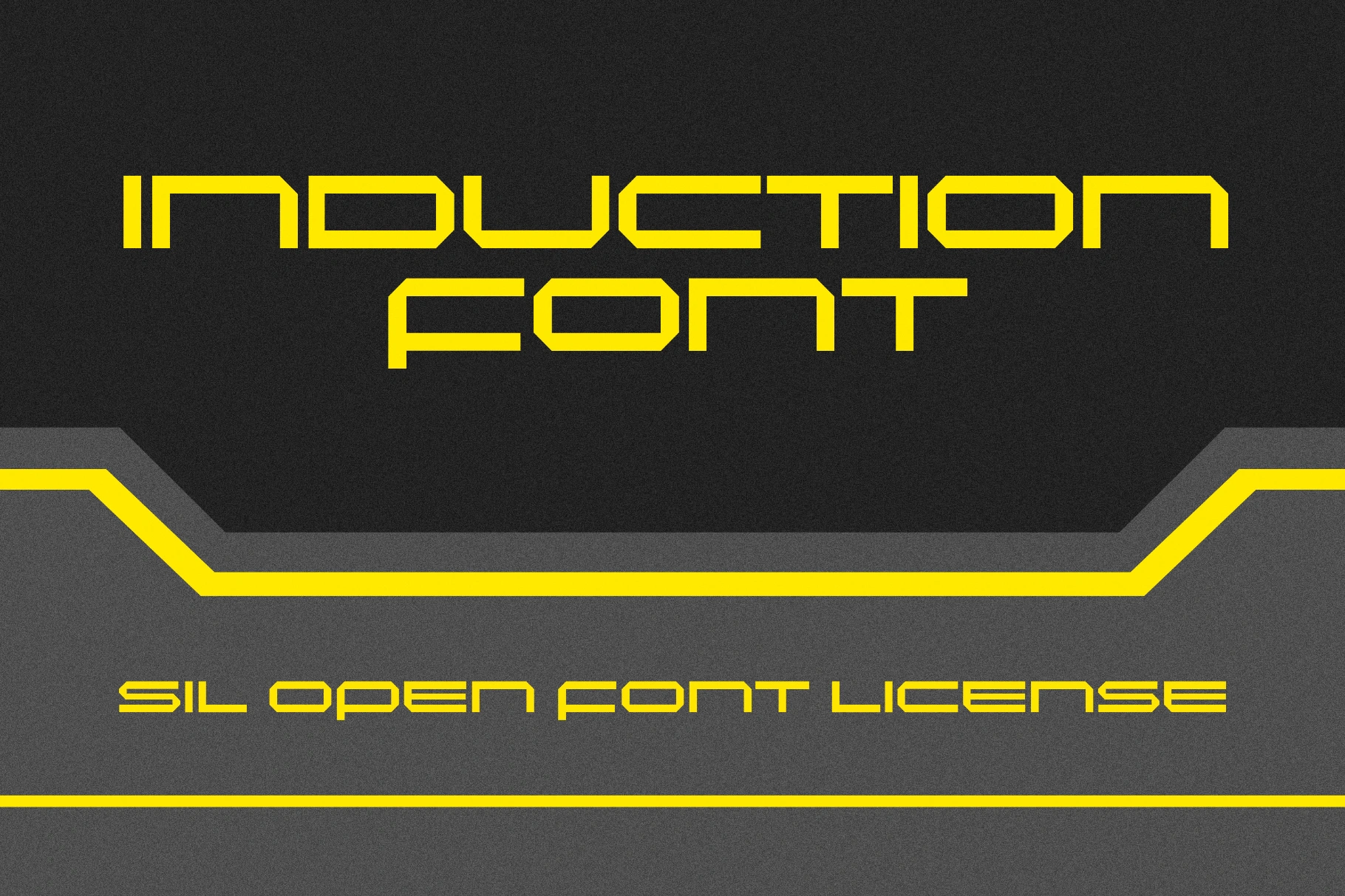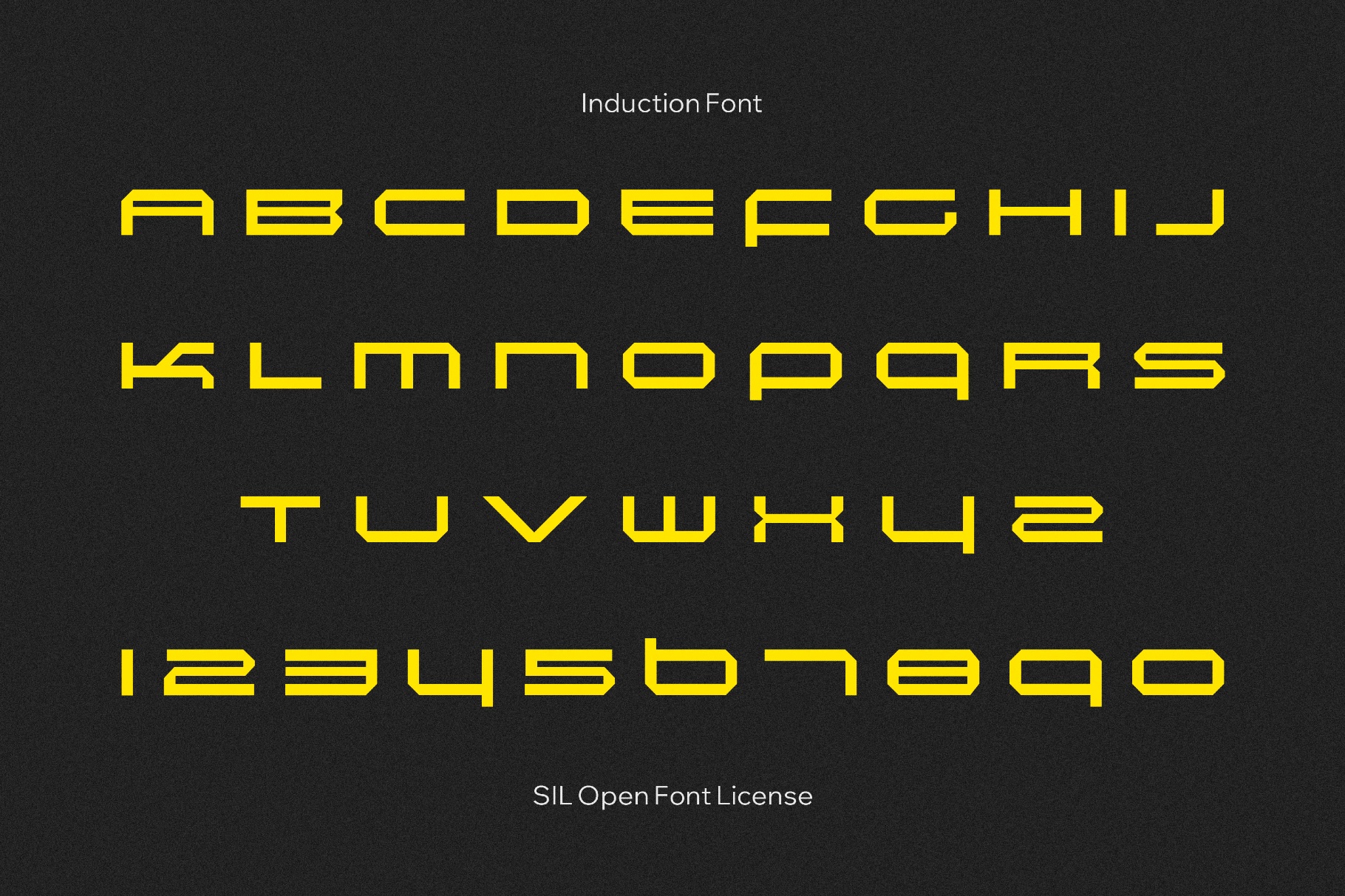
Induction Font
Induction
Induction is a compact, futuristic font with squared geometry and sharp apertures typical for early industrial control panels and late-’90s sci-fi interface typography. This all-caps is well-suited to tech branding, game titles, cyberpunk and Y2K poster headlines, esports wordmarks, UI mockups, data-heavy HUDs, electronic music artwork, motion graphics, and editorial covers.
- Uppercase letters.
- International characters with multilingual support across extended Latin scripts.
- Extended support for mathematical symbols and metrics.